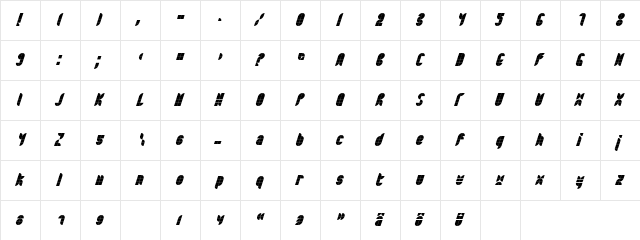
Bath HeavyItalic
Design Context for Bath Typeface
Bath takes a measured approach to typography — its balanced proportions and neutral character make it a reliable workhorse for both digital and print work. The dynamic lean of this cut emphasises speed and emphasis in any layout.
Pro Tip: Use Bath for emphasis, pull quotes, and subheadings where its slanted energy can add rhythm to the layout.